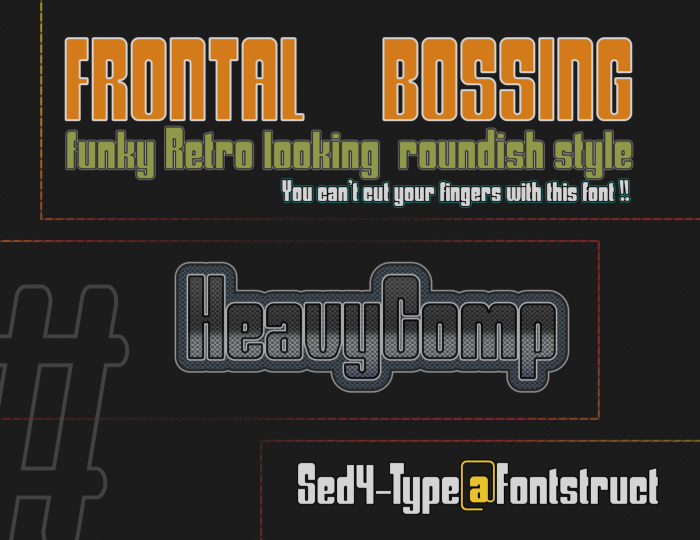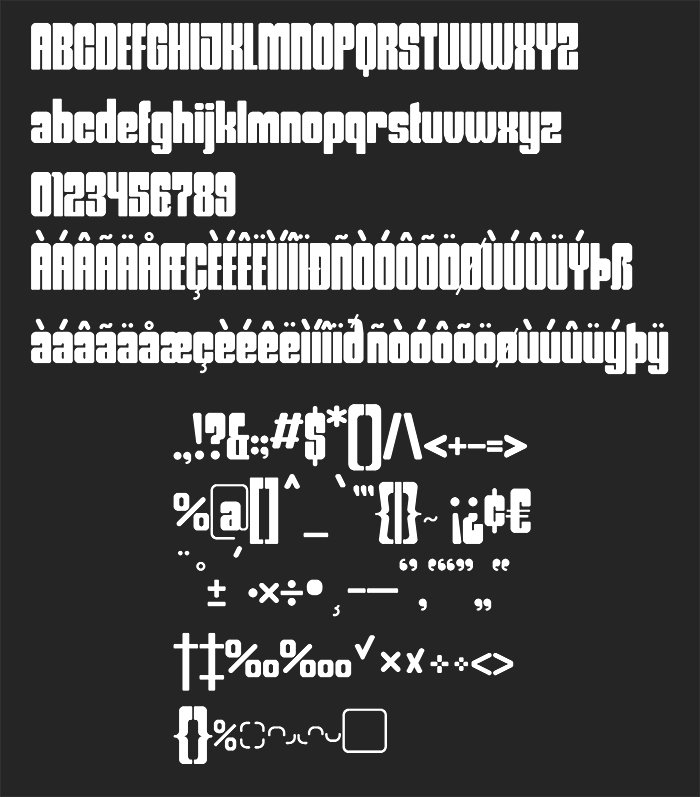
• STF_FRONTAL BOSSING - A groovy bold and rounded Sans Serif typeface.
This is going to be my second entry in the "HeavyComp"
Grid:
17 × 16 square grid units (incl. descends, overshoots, accents)
Filter: 2 × 2 brick size
BIO:
The idea was to come up with a friendly chubby fella.
And for all I know I think I have done just that. In the end, it does seem to appear it came out with a slightly bigger forehead than the average (but, no love was lost here, we have come to learn to appreciate the misfits).
Despite its weight and slightly clumsy appearance this juicy Mr. Boogie still got dat funk, and can not wait for it to be the next saturday night.
Even so, when he for once isn't told to "Swing and Boogie" he still is nice to have hanging around. His friendly persona is only to be matched by the ever so nice soft curves. "No sharp edges to detect here".
I can only hope for that all of you come to appreciate him as well! ;-)
CONCEPT:
The idea was to make a letterform that has a friendly looking design. I tried to achieve this by way of softening all hard convex corners with a smooth rounded curve. And by "all" I litteraly meant, even on all diagonals, accents, thin strokes and stroke tips (Nothing was left untouched).
For all the concave corners, so the negative space (white space) of the letters have multiple solutions depending on what is happening (does it curve, intersect and or wether a stroke continues or not)
The curves all have near hi-res looking (a couple of minute imperfections) but otherwise smooth surfaces, and there are multiple custom created ratios/transitions, such as:
1.5×1.5,   2.5×2.5,   2.5×3,   3×4  (+  The bullet is a 7×7 circular dot)
Great retro style!
I'm with Yautja. I like it.
Top heavy and charming.
cool!
Nice retro-style font. Congratulations to the TP. 10/10